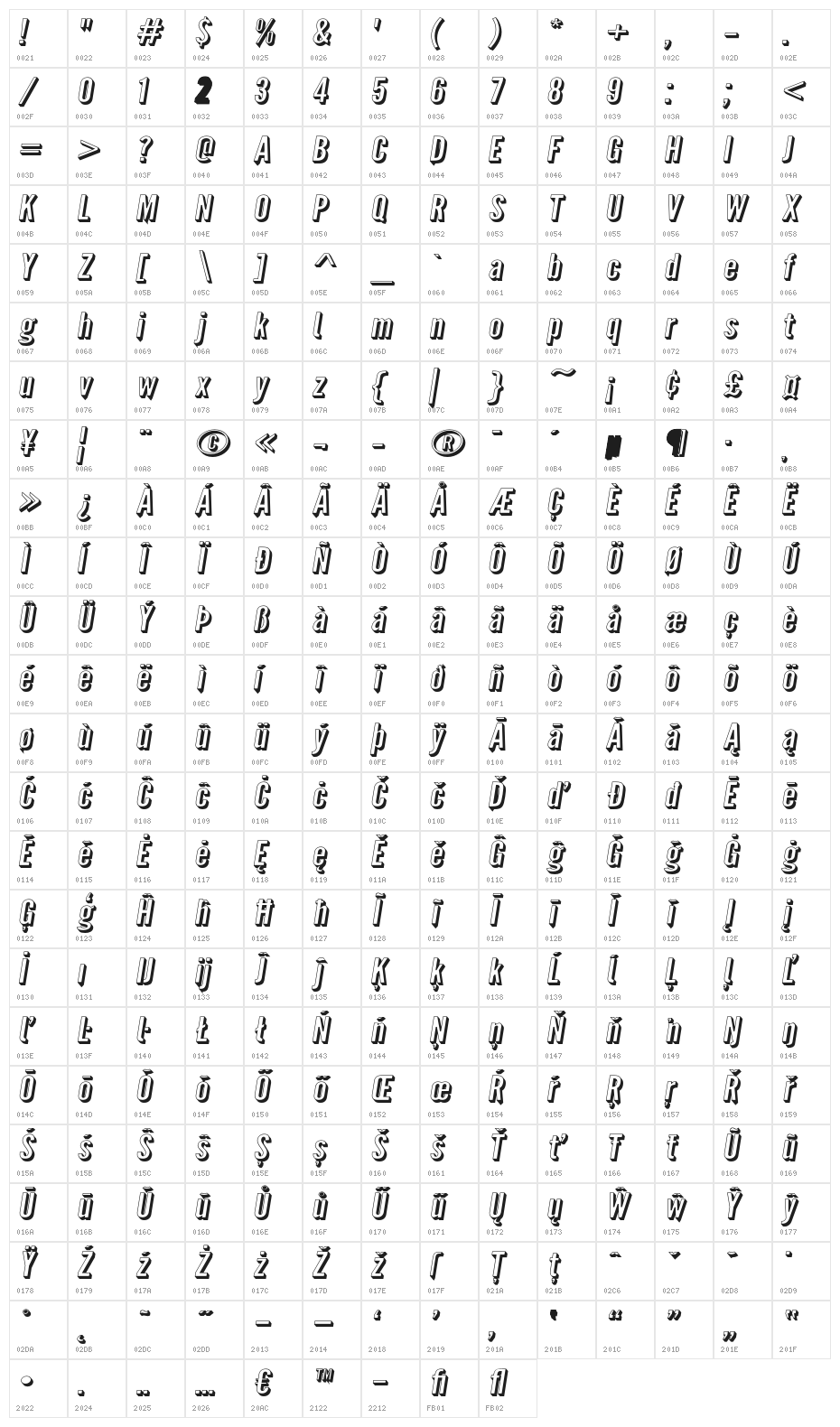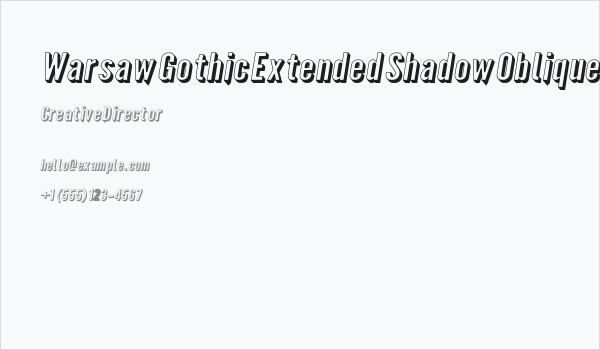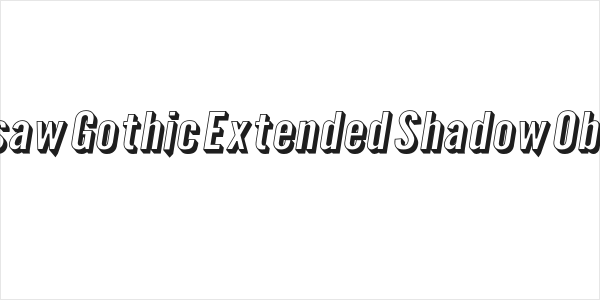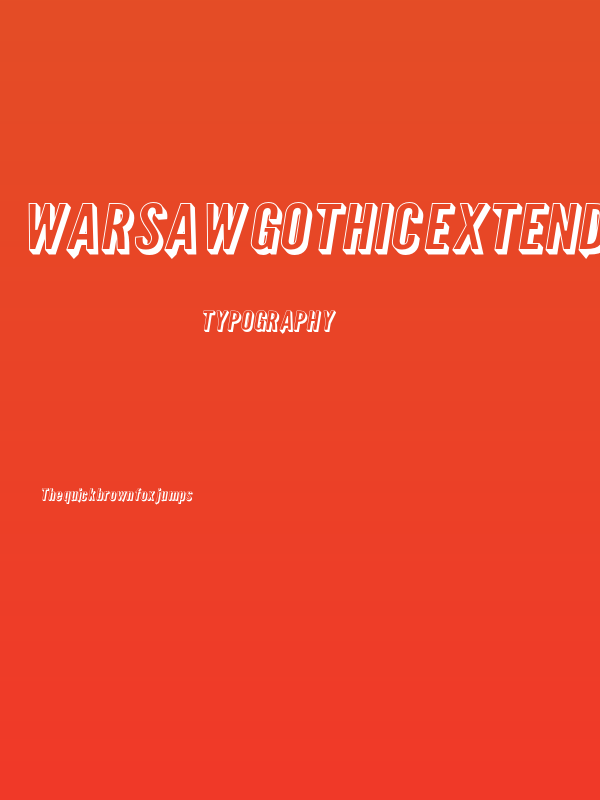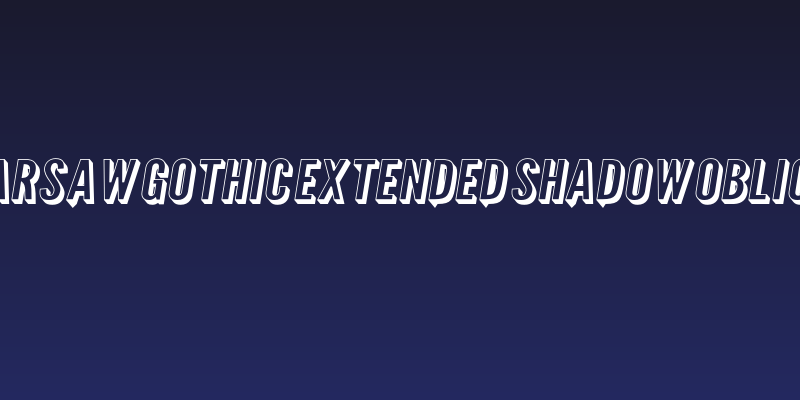
Warsaw Gothic Extended Shadow Oblique Font
Warsaw Gothic Extended Shadow Oblique Description
This font features a bold and dynamic style with a distinct shadow effect that gives it a three-dimensional appearance. The characters are slightly oblique, adding a sense of movement and energy. The uppercase and lowercase letters maintain a consistent width, while the numerals and special characters are designed to complement the overall aesthetic. The font's extended nature allows for a more expansive look, making it suitable for impactful headlines and attention-grabbing designs. Its gothic influence is evident in the angular and sharp edges, providing a modern twist on a classic style.
| Proposed Projects | Ideal for posters, logos, and branding materials that require a bold and eye-catching typeface. |